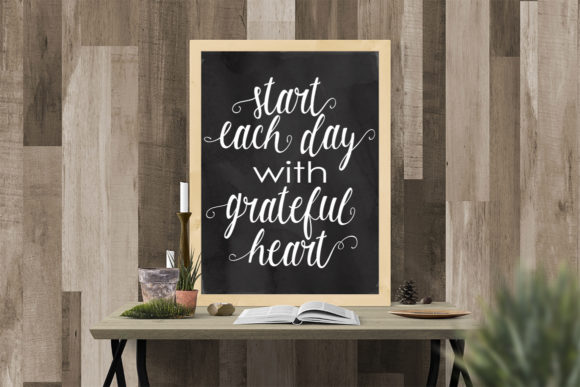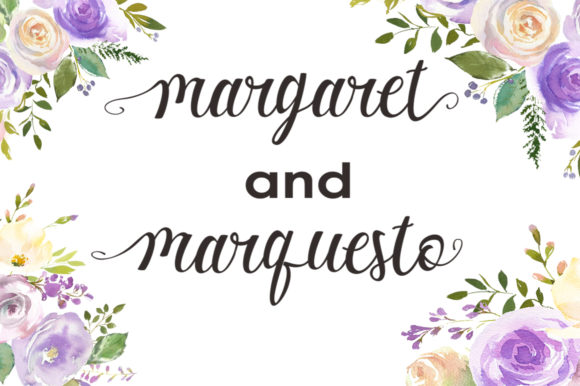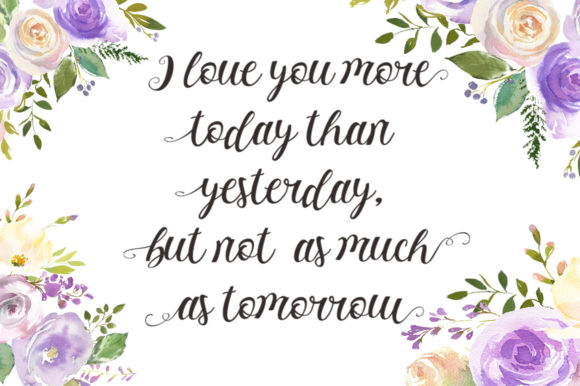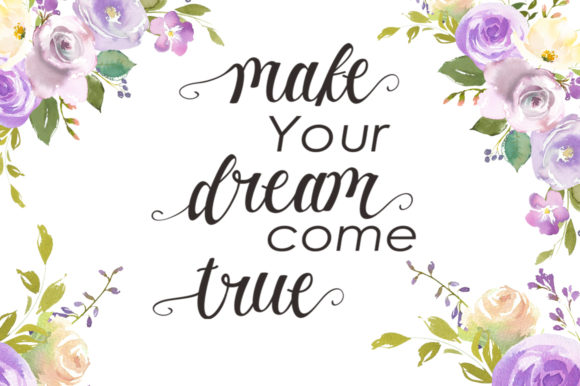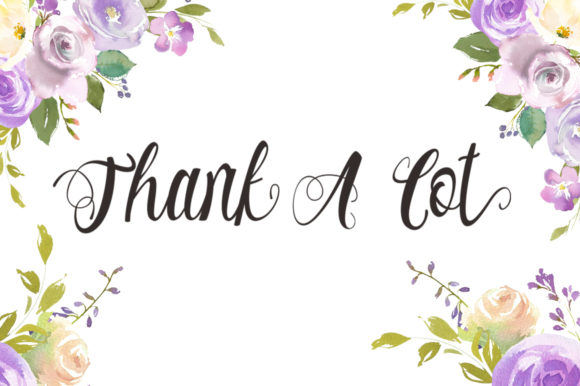
Introducing Alhenya Font: The Epitome of Modern Script Elegance
Are you on the hunt for a font that exudes sophistication, charm, and an undeniable touch of modern elegance? Look no further than Alhenya Font, a stunning script font that is sure to capture your heart. With its beautiful and flowing lines, Alhenya is the perfect addition to any design project that requires an authentic and refined touch.
The Characteristics of Alhenya Font
Alhenya Font is a modern script font that boasts a range of characteristics that set it apart from other fonts. Its elegant and cursive design makes it perfect for a variety of design projects, from wedding invitations and branding materials to packaging and digital media. The font features:
- Beautiful and flowing lines: Alhenya’s script design features beautiful, flowing lines that give it a sense of movement and elegance.
- Unique letterforms: Each letterform in Alhenya is carefully crafted to ensure that the font is both stylish and legible.
- Modern and sophisticated: Alhenya’s modern design makes it perfect for designers and crafters who want to add a touch of sophistication to their projects.
Why Choose Alhenya Font?
So, why should you choose Alhenya Font for your next design project? Here are just a few reasons:
- Authentic touch: Alhenya’s unique design gives it an authentic touch that is sure to set your project apart from the rest.
- Versatility: Alhenya is a versatile font that can be used for a range of design projects, from print materials to digital media.
- Elegance: Alhenya’s elegant design makes it perfect for projects that require a touch of sophistication and refinement.
Using Alhenya Font in Your Design Projects
Alhenya Font is easy to use and can be incorporated into a range of design projects. Here are a few ideas to get you started:
- Wedding invitations: Alhenya’s elegant design makes it perfect for wedding invitations, save-the-date cards, and other wedding-related materials.
- Branding materials: Use Alhenya to create stunning branding materials, such as logos, business cards, and letterheads.
- Packaging: Alhenya’s modern design makes it perfect for packaging materials, such as labels, tags, and product packaging.
- Digital media: Use Alhenya to create stunning digital media, such as social media graphics, blog posts, and website headers.
Tips for Getting the Most Out of Alhenya Font
Here are a few tips for getting the most out of Alhenya Font:
- Experiment with different sizes: Alhenya looks great in a range of sizes, from large headings to smaller body text.
- Pair with other fonts: Alhenya pairs well with a range of other fonts, so don’t be afraid to experiment with different combinations.
- Use it sparingly: While Alhenya is a beautiful font, it can be overwhelming if used too much. Use it sparingly to create a sense of elegance and sophistication.
In conclusion, Alhenya Font is a stunning modern script font that is sure to capture your heart. With its beautiful and flowing lines, unique letterforms, and modern design, Alhenya is the perfect addition to any design project that requires an authentic and refined touch. Whether you’re a designer, crafter, or DIY enthusiast, Alhenya is a must-have font that is sure to elevate your projects to the next level.